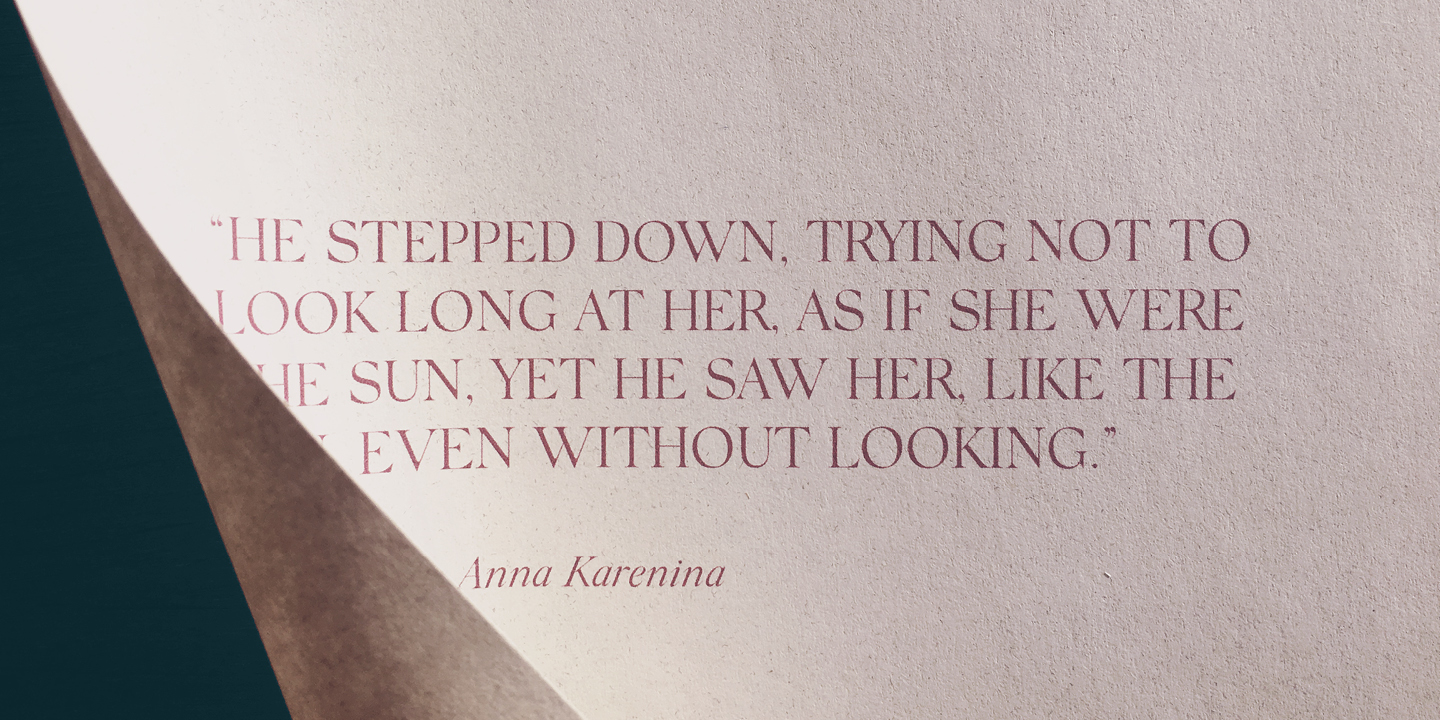
Silk Serif Font Free Download is an elegant and highly detailed typeface that brings a luxurious, sophisticated feel to any design. Created with fine-tuned curves and sharp, graceful serifs, this font is perfect for high-end branding, editorial layouts, wedding invitations, and upscale packaging designs. If you want to elevate your creative projects with a touch of class and refinement, Silk Serif is an outstanding choice.
Designed to embody both beauty and readability, Silk Serif blends classic serif traditions with a contemporary twist. Its well-balanced letterforms and artistic finishes make it stand out in both digital and print applications. Whether you’re designing a magazine spread, a fashion brand logo, or a luxury website, Silk Serif delivers unmatched style and impact.
Available in various weights and styles, Silk Serif provides flexibility for any creative vision. From delicate headlines to strong, expressive statements, it offers the right tone for a wide range of projects. Add it to your font collection now and bring a refined elegance to your next design masterpiece.